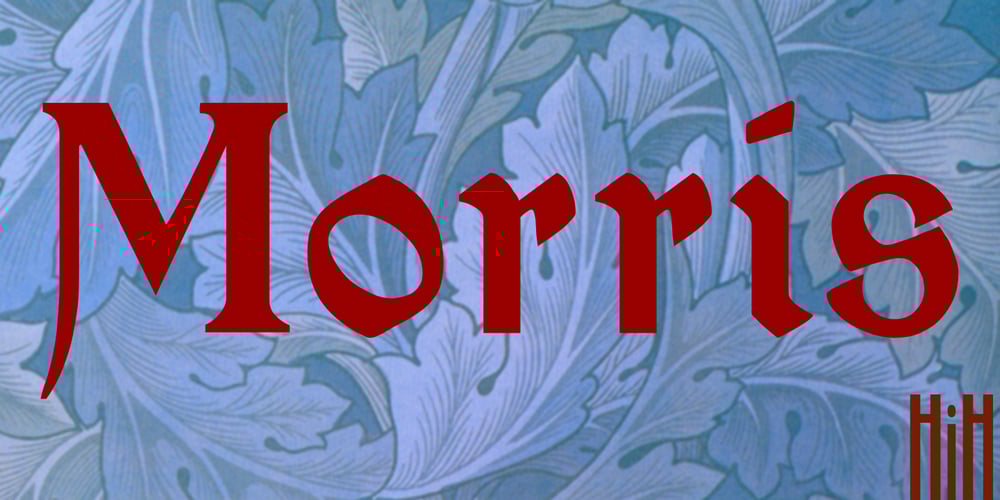
Morris Font Family was designed by William Morris and published by HiH. Morris contains 4 styles and family package options. Morris is a four-font family produced by HiH Retrofonts and based on the work of the very English William Morris. William Morris wanted a gothic type drawn from the 14th century blackletter tradition that he admired both stylistically and philosophically. He drew from several sources. His principal inspiration for his lower case was the 1462 Bible by Peter Schoeffer of Mainz; particularly notable for the first appearance of the ‘ear’ on the g. The upper case was Morris’s amalgam of the Italian cursive closed caps popular throughout the 12th through 15th centuries, a modern example of which is Goudy’s Lombardic Capitals. The gothic that Morris designed was first used by his Kelmscott Press for the publication of the Historyes Of Troye in 1892. It was called “Troy Type” and was cut at 18 points by Edward Prince. It was also used for The Tale of Beowulf. The typeface was re-cut in at 12 points and called “Chaucer Type” for use in The Order of Chivalry and The Works of Geoffrey Chaucer. Morris’ objective is designing his gothic was not only to preserve the color and presence of his sources, but to create letters that were more readable to the English eye. ATF copied Troy and called it Satanick. Not only was the ATF version popular in the United States; but, interestingly, sold very well in Germany. There was great interest in that country in finding a middle ground between blackletter and roman styles — one that was comfortable for a wider readership. The Morris design was considered one of the more successful solutions. Our interpretation, which we call Morris Gothic, substantially follows the Petzendorfer model used by other versions we have seen, with the following exceptions: 1) a larger fillet radius on the upper arm of the H, 2) a more typically broadpen stroke in place of the foxtail on the Q, which I do not like, 3) inclusion of the aforementioned ear on the g and 4) a slightly shorter descender on the y. We have included five ornaments, at positions 0135, 0137, 0167, 0172 and 0177. The German ligatures ‘ch’ & ‘ck’ can be accessed using the left and right brace keys (0123 & 0125). Morris Initials One and Morris Initials Two are two of several different styles of decorative initial letters that Morris designed for use with his type. He drew from a variety of 15th century sources, among which were Peter Schoeffer’s 1462 Mainz Bible and the lily-of-the-valley alphabet by Gunther Zainer of Augsburg. Each of the two initial fonts is paired with the Morris Gothic lower case. Morris Ornaments is a collection of both text ornaments and forms from the surrounding page-border decorations.